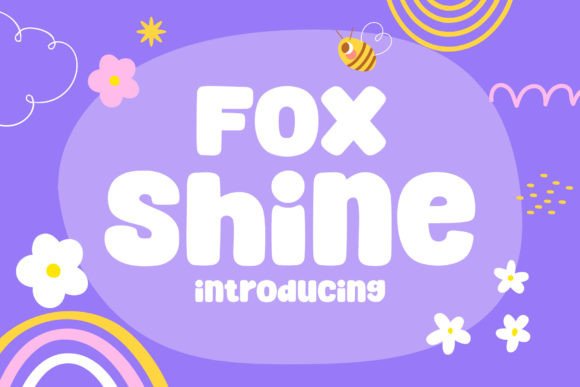
In a world where uniqueness and self-expression reign supreme, meet Fox Shine Font, the display font that's bursting with personality and charm. Created by the visionary designers at Fox7, this captivating font family is the perfect companion for your creative adventures, whether you're designing stickers, crafting invitations, or adding a touch of whimsy to your digital creations.
Picture this: big, bold letters dancing across your designs, grabbing attention and sparking joy with every stroke. Fox Shine Font is a visual masterpiece, meticulously crafted to evoke a sense of playfulness and authenticity. Its chunky letters exude a sense of warmth and approachability, making it the ideal choice for projects that aim to connect with audiences of all ages.
With Fox Shine Font, the possibilities are as endless as your imagination. Its versatility shines through in a kaleidoscope of applications, from vibrant stickers that bring smiles to faces to eye-catching invitations that set the tone for unforgettable celebrations. Unleash your creativity and watch as Fox Shine Font transforms your designs into works of art.
But Fox Shine Font isn't just another font; it's an experience. It's a font that breathes life into your creations, captivating audiences with its playful charm. It's a font that evokes nostalgia, transporting you back to those carefree days of childhood where laughter and imagination flowed freely.
So, if you're seeking a font that's more than just a collection of letters, if you're searching for a font that ignites imaginations and leaves a lasting impression, then look no further. Embrace the magic of Fox Shine Font and embark on a creative journey where anything is possible.